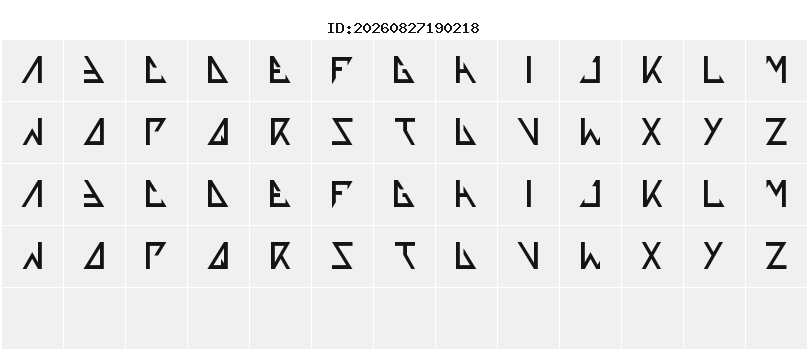
• Font Name: thetrainingartist
• Full Font Name: thetrainingartist
About thetrainingartist.ttf
thetrainingartist.ttf is a modern, elegant sans-serif font designed for ultimate readability and visual harmony. Perfect for branding, headlines, web design, and print materials.